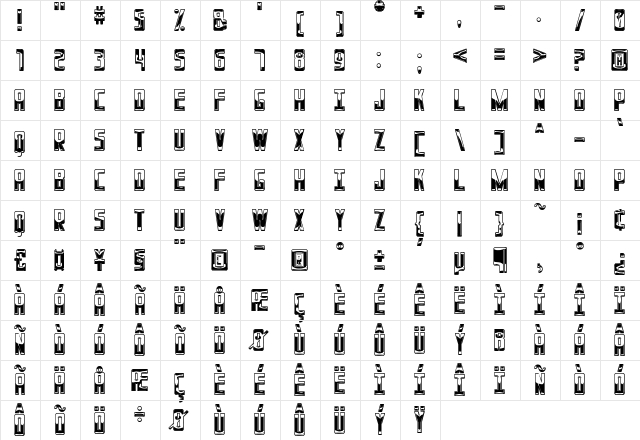
Panda Power St Regular
Design Context for Panda Power St Typeface
Panda Power St brings high-energy athletic personality to the page — its confident, muscular forms are built for impact.
Built for sports team identities, athletic apparel, event posters, and high-energy promotional material.
Font Pairing: Use alongside a condensed or geometric sans for supporting copy — keep the pairing bold, functional, and free of ornament.
Pro Tip: Panda Power St thrives on contrast — try it large, bold, and tight against a clean background for maximum visual impact.